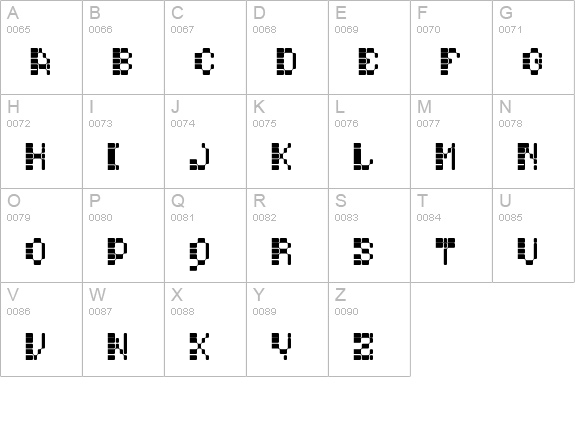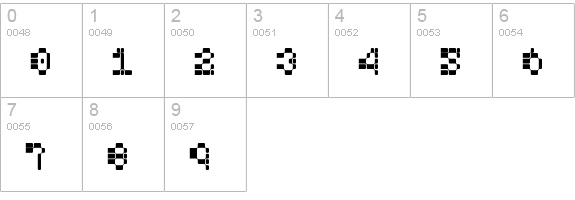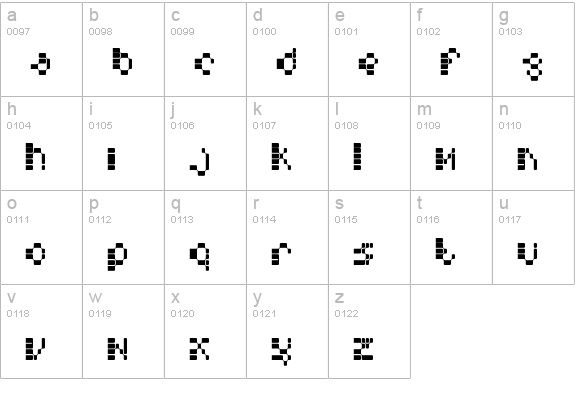
HypercellRNA Font Details
HypercellRNA is a sleek and futuristic font that exudes a sense of innovation and cutting-edge technology. Inspired by the intricate patterns of cellular structures, this font features sharp lines and geometric shapes that create a sense of complexity and depth. With its modern and dynamic design, HypercellRNA is perfect for projects that require a bold and contemporary look. Not only does HypercellRNA offer a unique visual appeal, but it also provides excellent readability and versatility. Whether used for branding, web design, posters, or any other creative project, this font is sure to make a statement and capture the attention of your audience. Best of all, HypercellRNA is available for free download at FontsMarket.com. So, why wait? Elevate your designs with this exceptional font and unleash your creativity like never before.